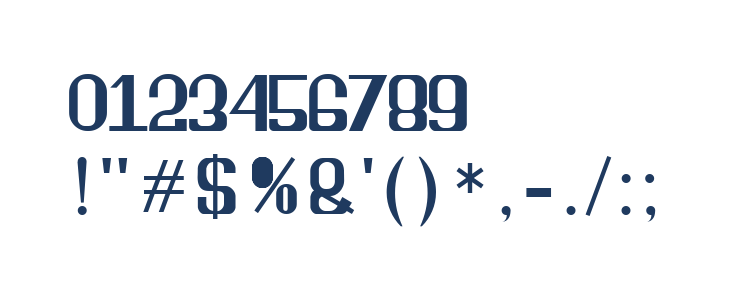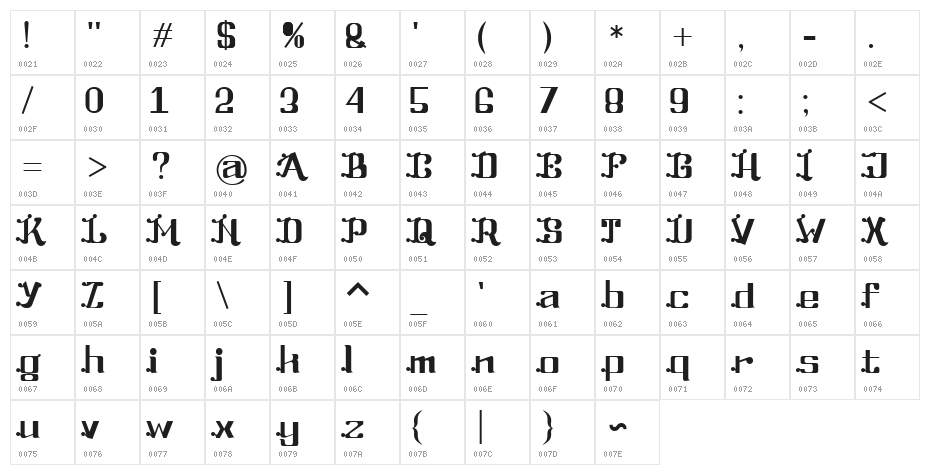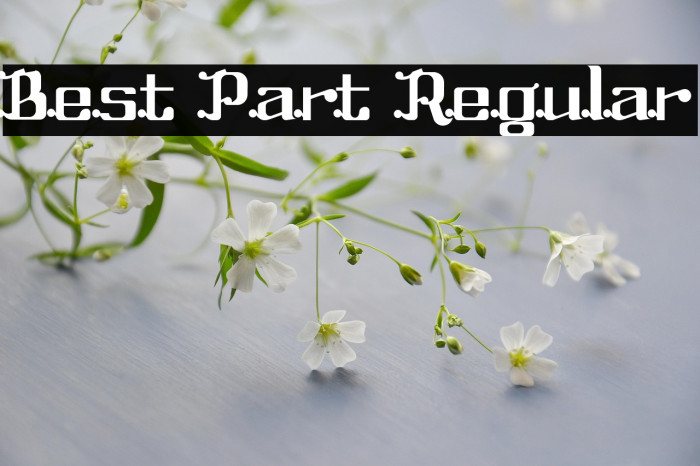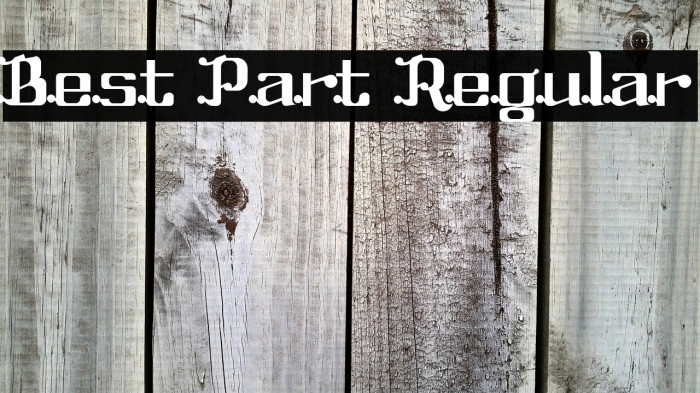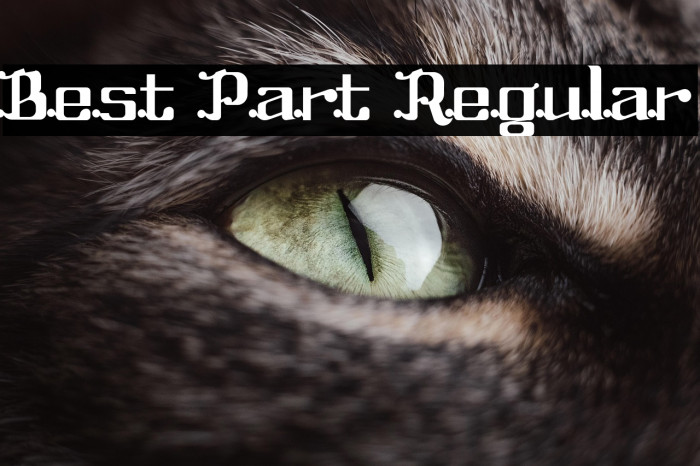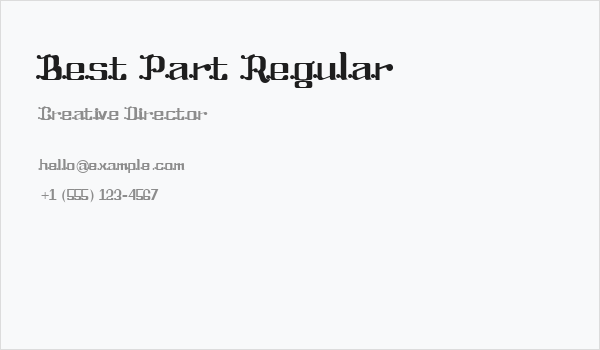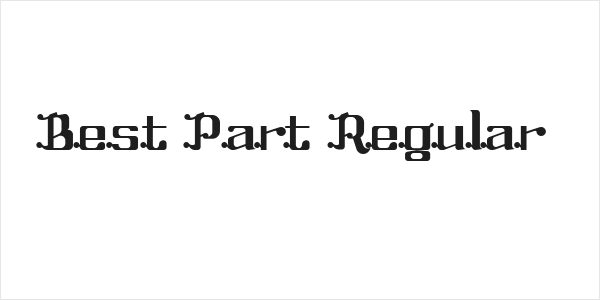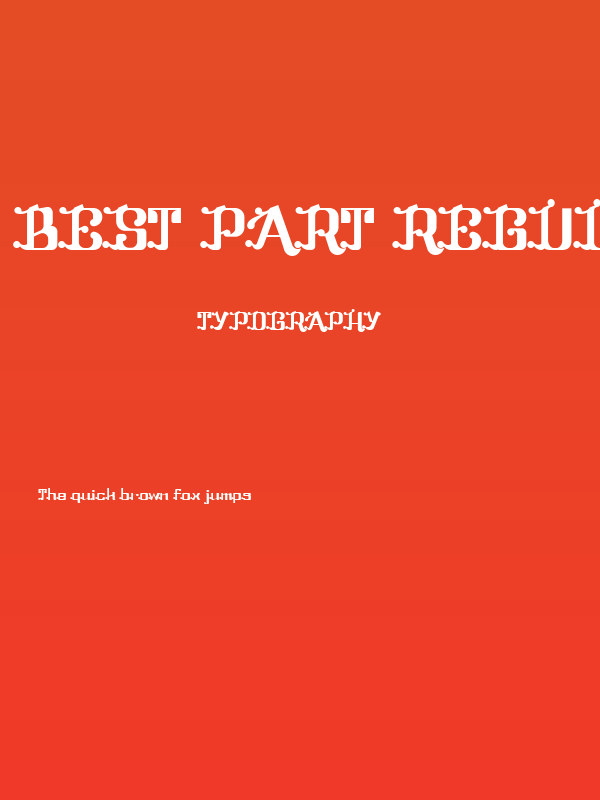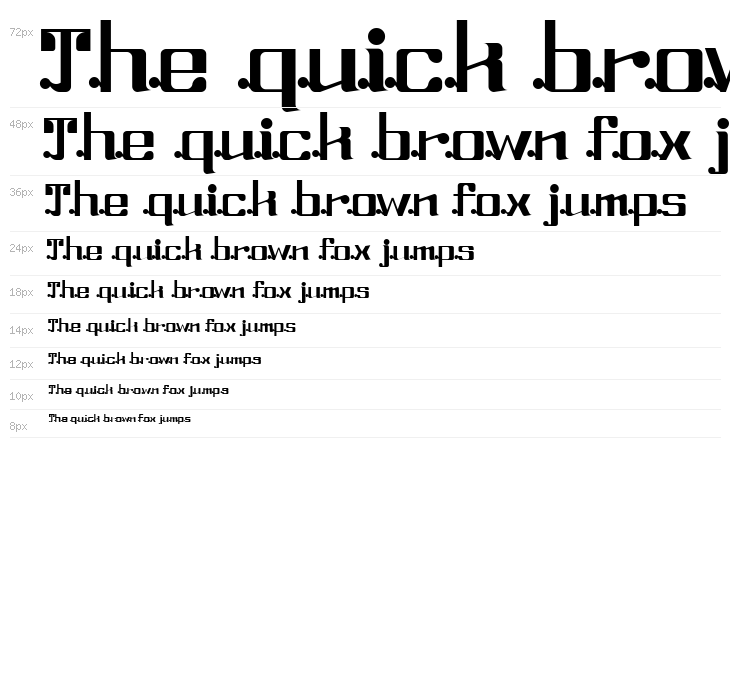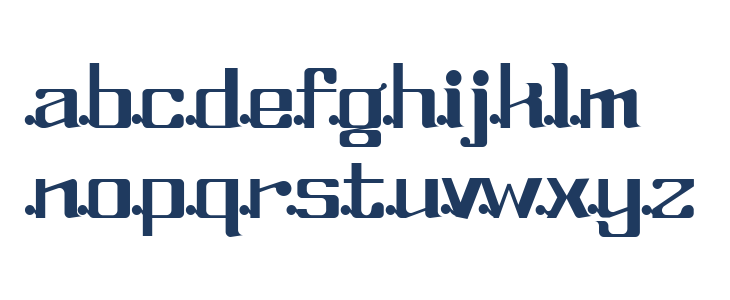
Best Part Regular Font
Best Part Regular Description
This font features a unique and playful design with decorative elements that resemble small dots or circles at the ends of each stroke. The uppercase letters are bold and structured, while the lowercase letters maintain a consistent style with slightly rounded edges. The numbers are clear and legible, matching the overall boldness of the alphabet. Special characters are designed with the same playful touch, making the font suitable for creative and eye-catching designs. The font's distinctive style makes it stand out, offering a modern twist on traditional typography.
| Overall Style | Modern, Decorative |
| Proposed Projects | Ideal for branding, posters, headlines, and any project requiring a bold and creative typeface. |